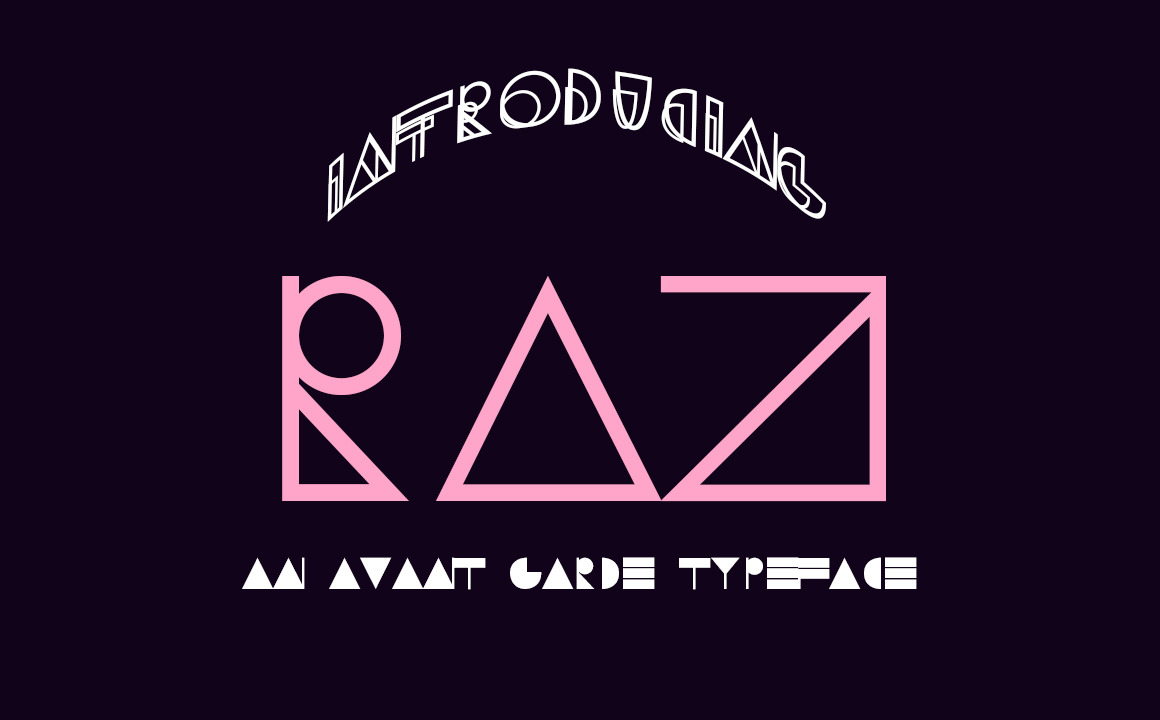
RAZ Typeface
Introducing, RAZ Typeface!
RAZ is an avant garde typeface. Its edgy, unique and stand out vibe is something I want to share with you all. RAZ includes 3 versions, 3 weights and has over 300 glyphs. RAZ is perfect for design projects, web designs, branding, editorial, etc.